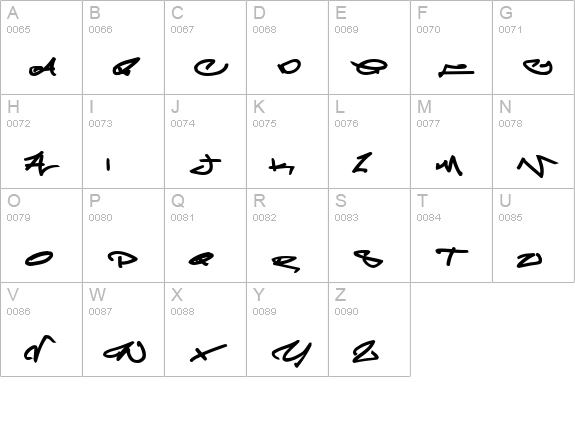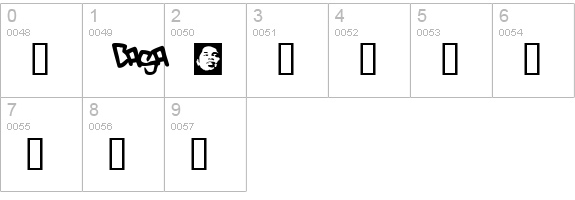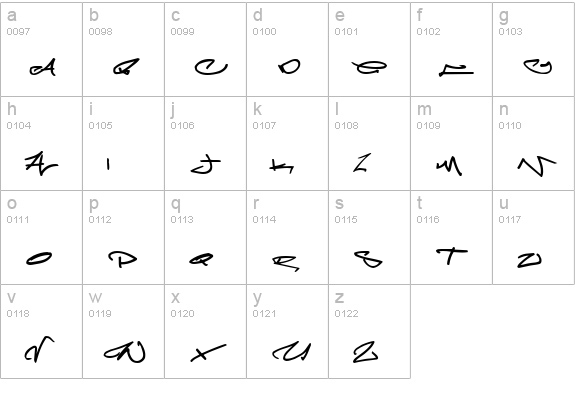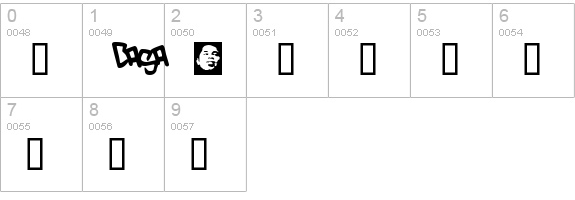
Meglaphoid Font Details
Meglaphoid font is a stunning display typeface that exudes elegance and charm. Its unique blend of sharp angles and flowing curves creates a captivating visual appeal that is perfect for a wide range of design projects. Whether you're working on branding, advertising, or editorial design, Meglaphoid will make a bold statement and leave a lasting impression. One of the best things about Meglaphoid font is that it is available for free download at FontsMarket.com. This means that you can easily access this beautiful typeface and use it in your projects without any cost. With its stylish and modern design, Meglaphoid font is sure to elevate your designs and make them stand out from the crowd. Don't miss out on the opportunity to add Meglaphoid font to your font collection. Download it for free today at FontsMarket.com and unleash your creativity with this striking typeface.